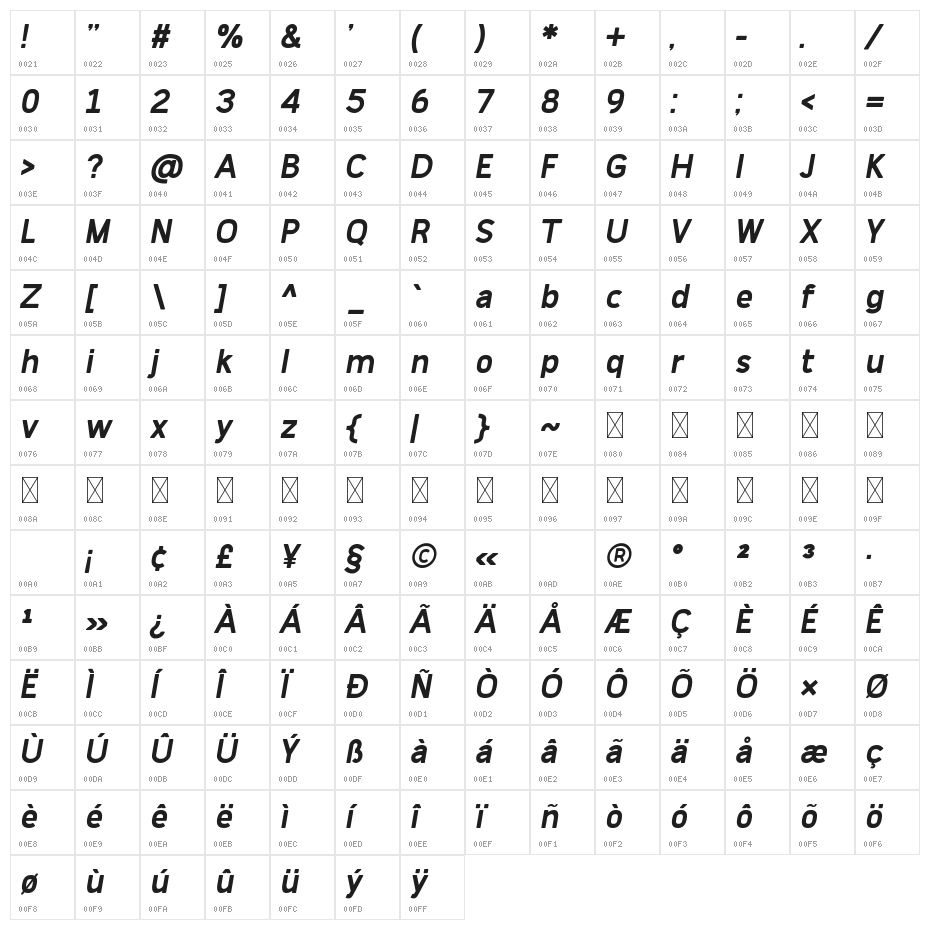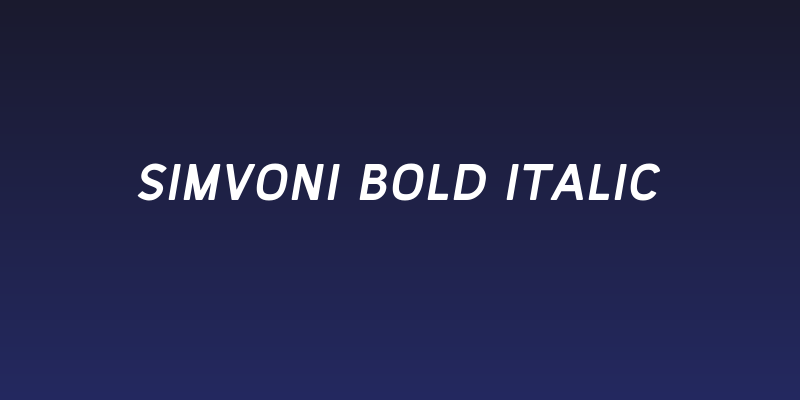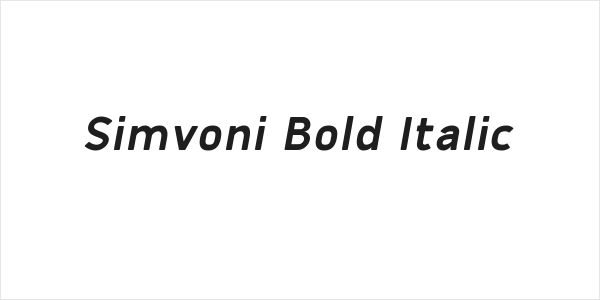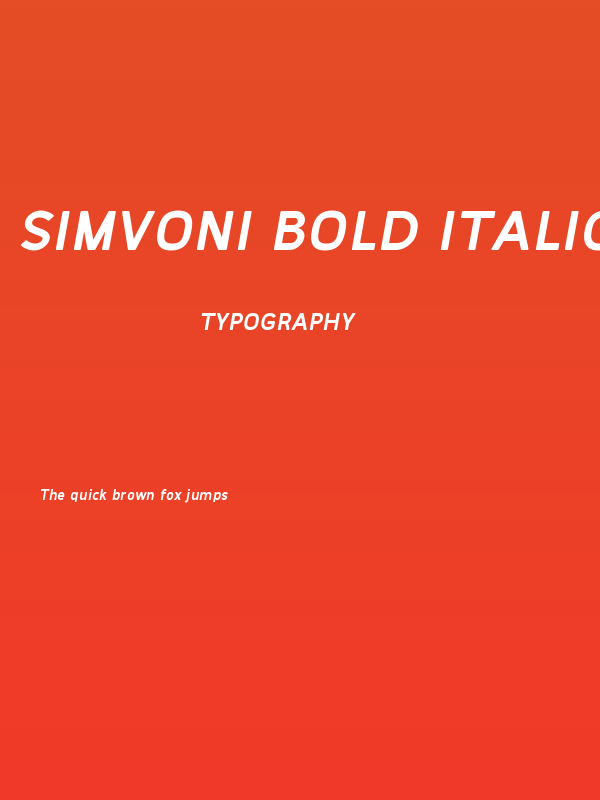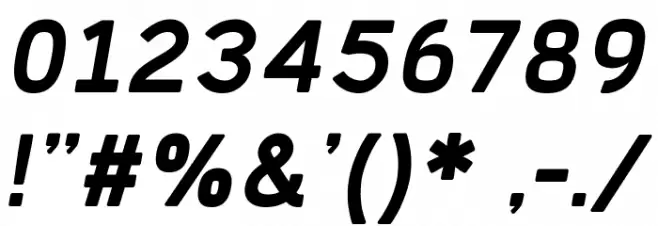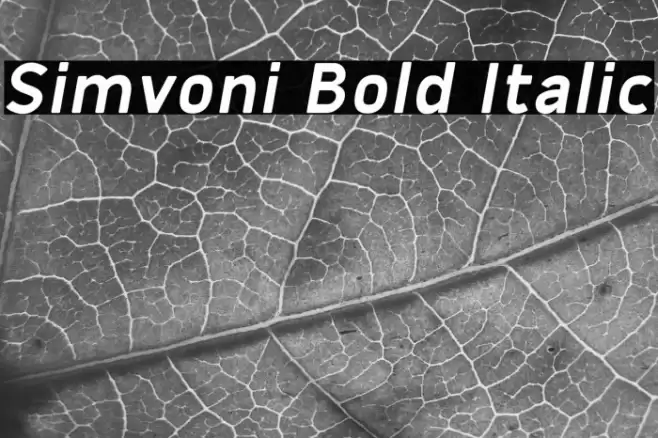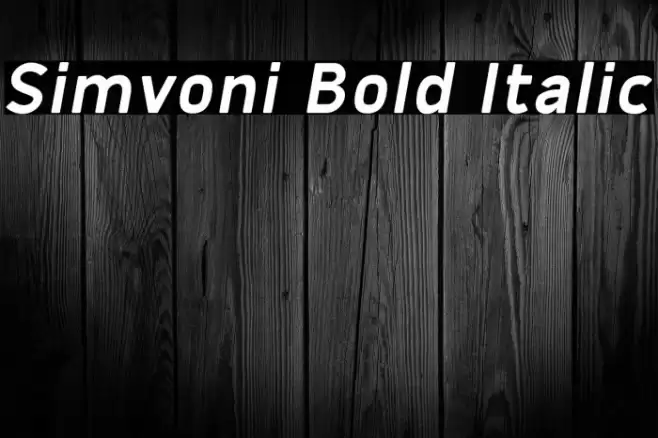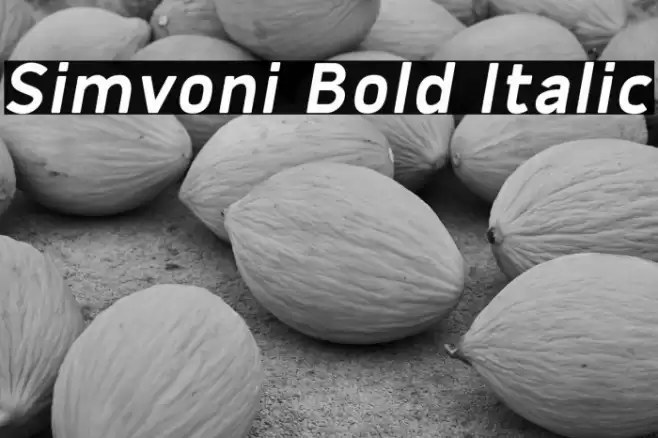
Simvoni Bold Italic Font
This font exhibits a bold and italicized style, characterized by its strong and assertive presence. The letters are slightly slanted, adding a dynamic and forward-moving feel. The strokes are thick and consistent, providing a sense of stability and confidence. The font maintains a clean and modern aesthetic, making it suitable for various applications. The characters are well-spaced, ensuring readability while maintaining a cohesive look. Its versatility allows it to be used effectively in both digital and print media, offering a contemporary touch to any project.
| Proposed Projects | Ideal for branding, advertising, headlines, and digital media projects. |